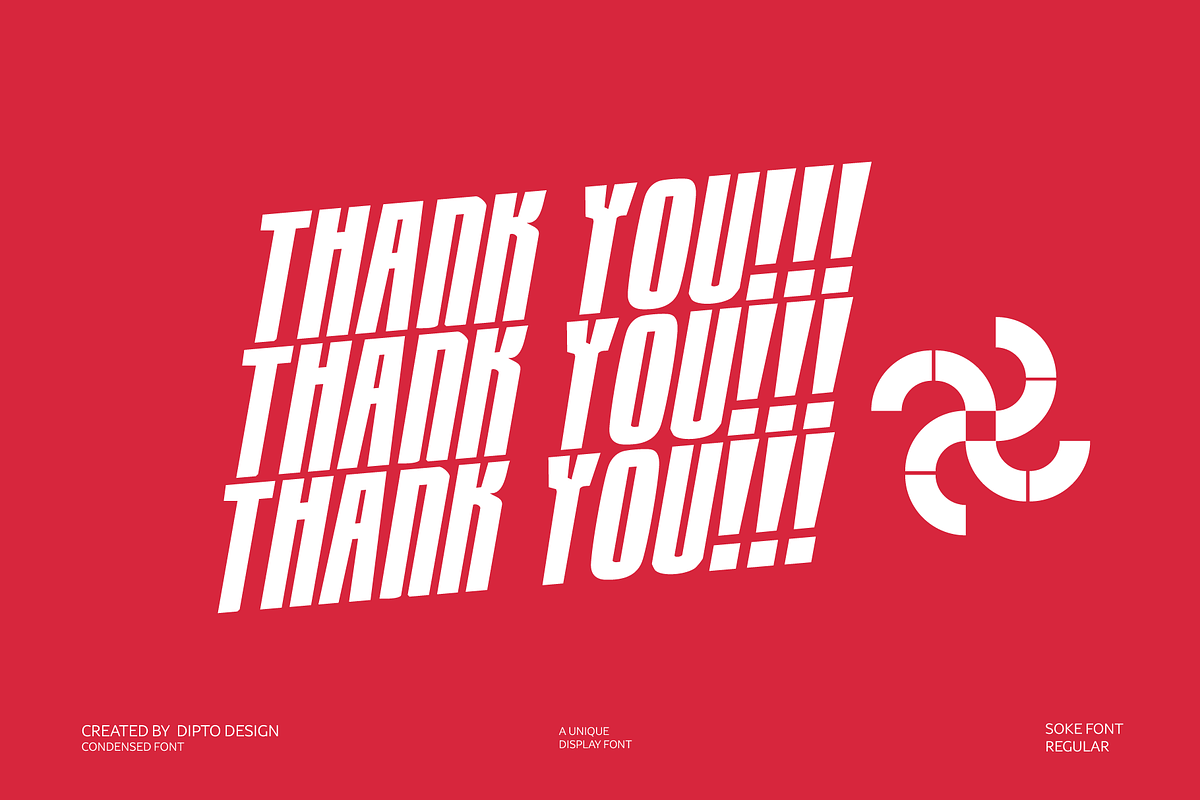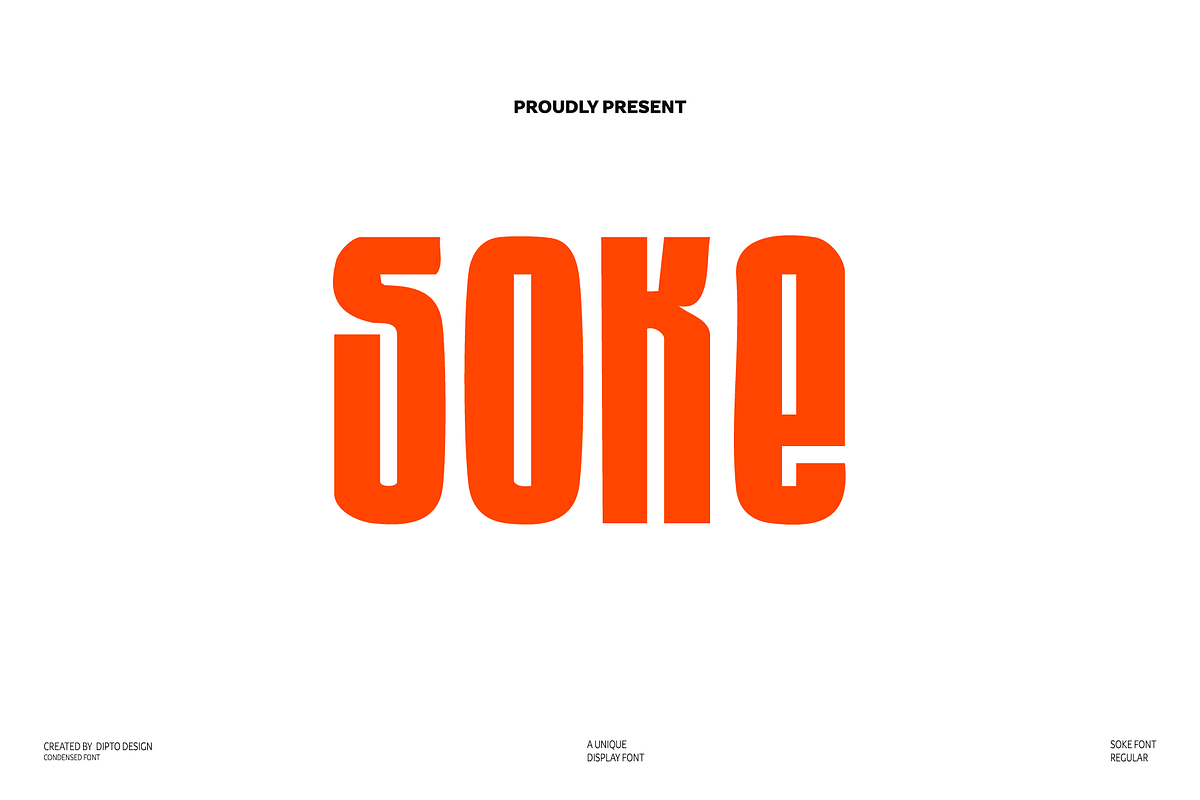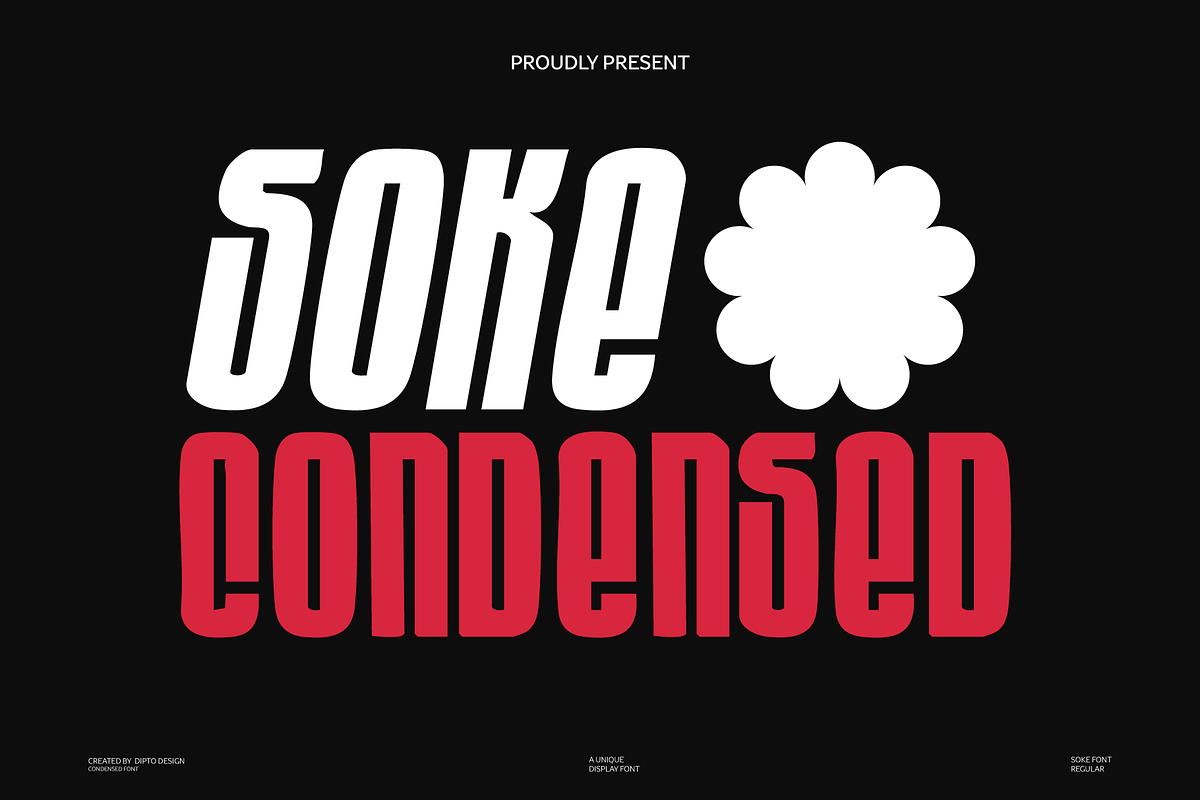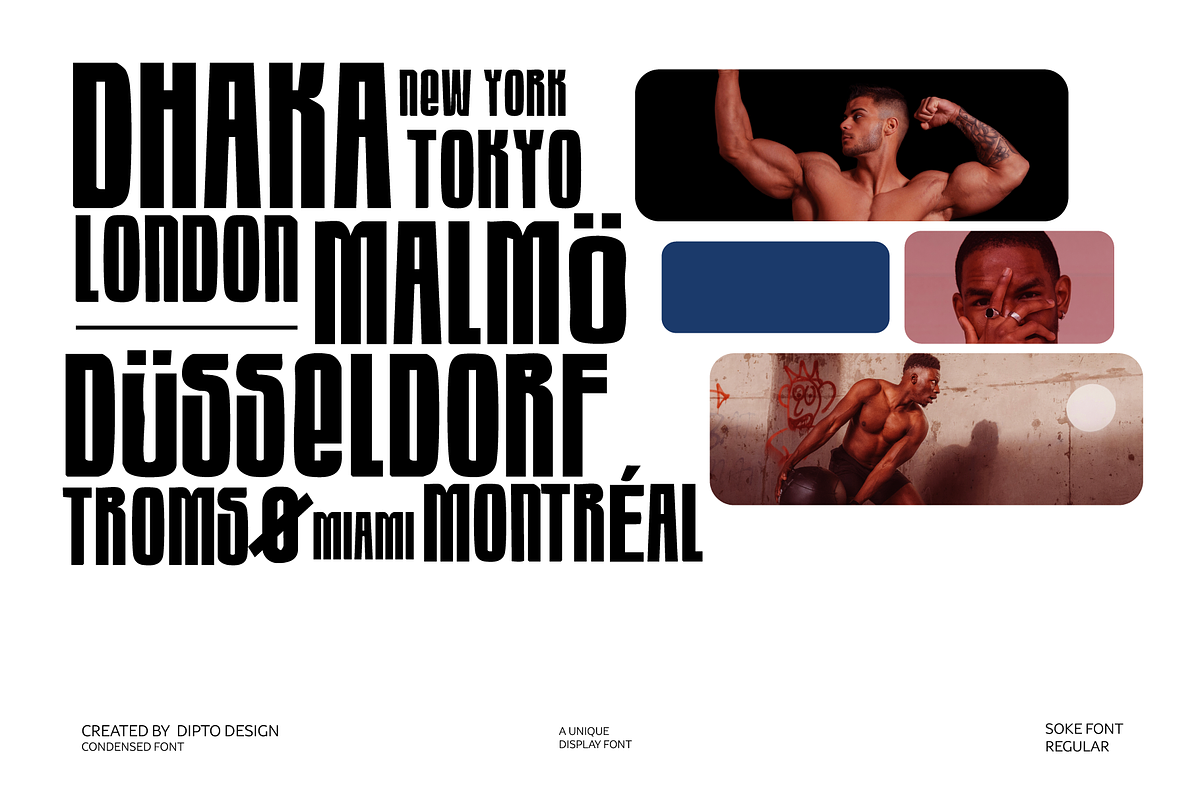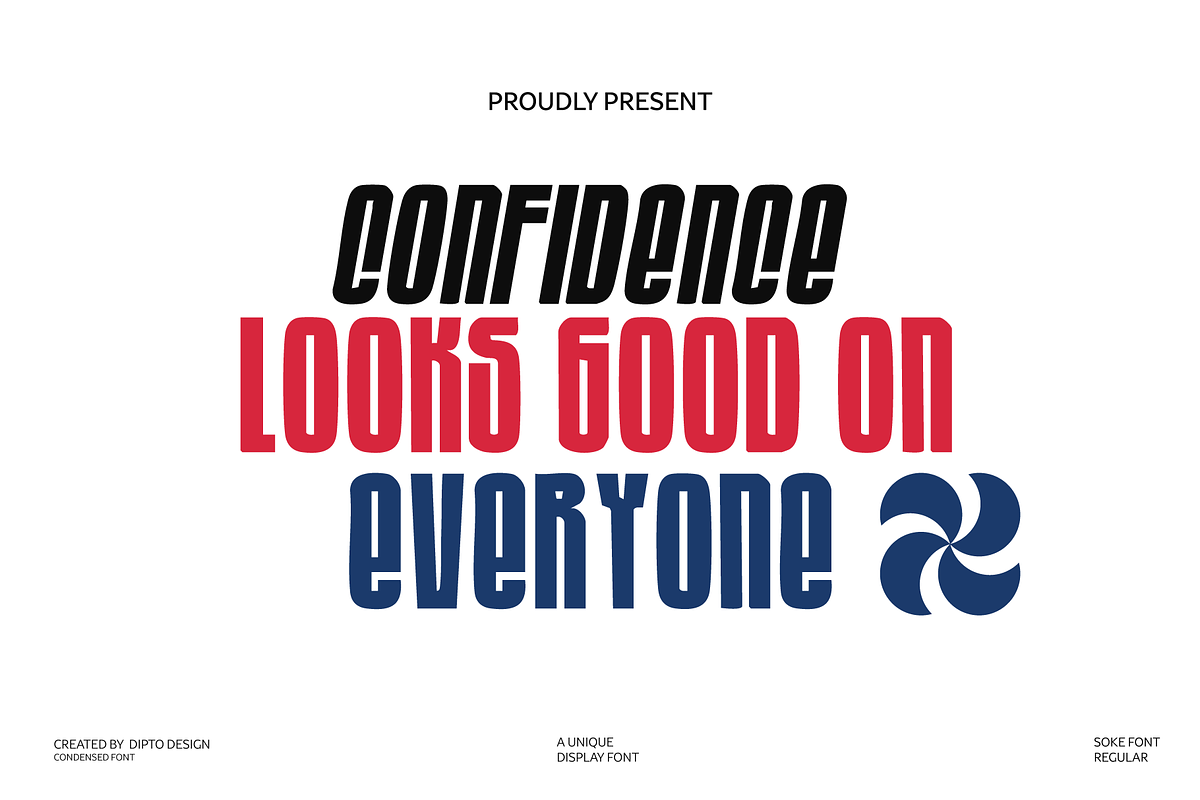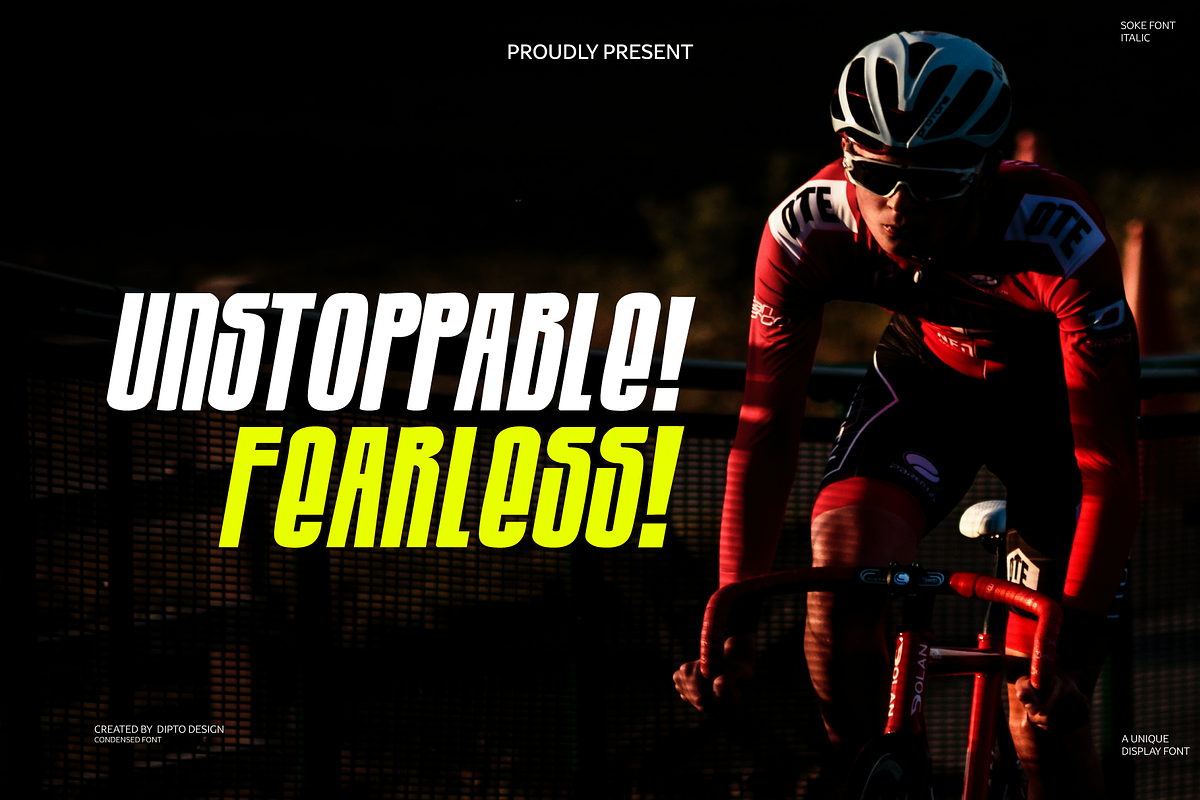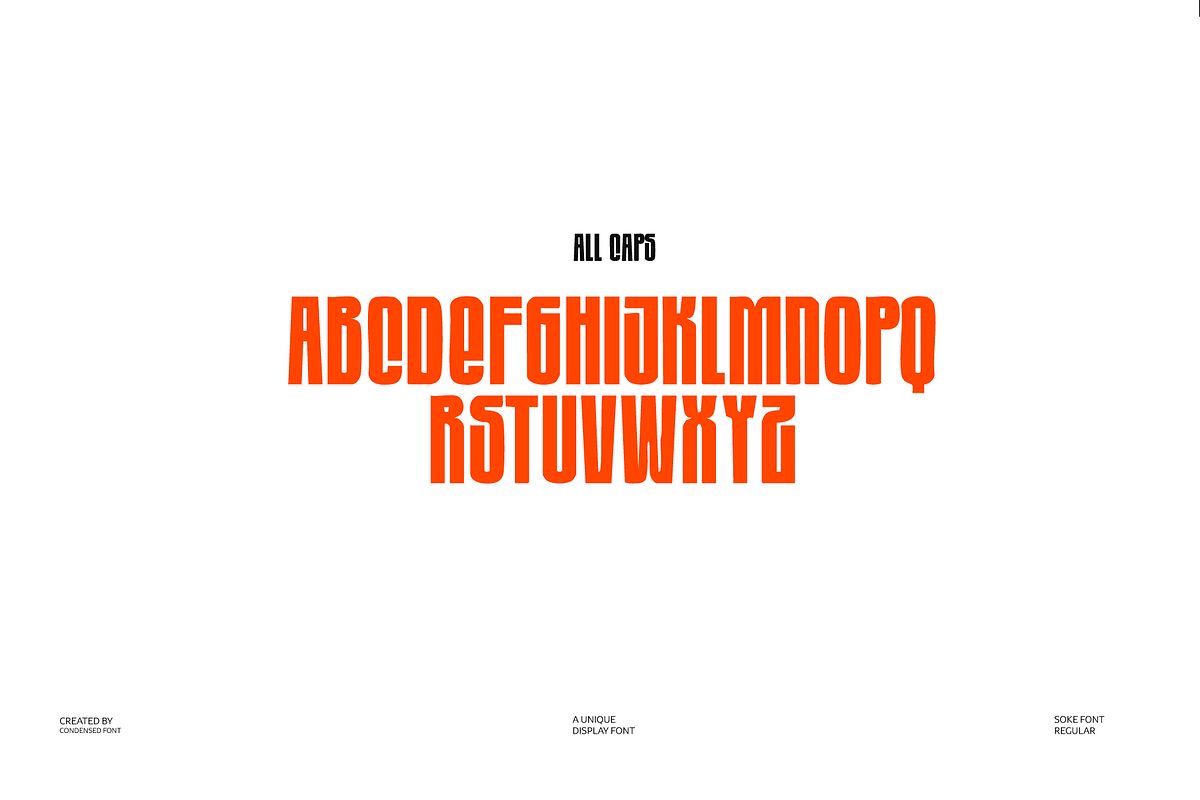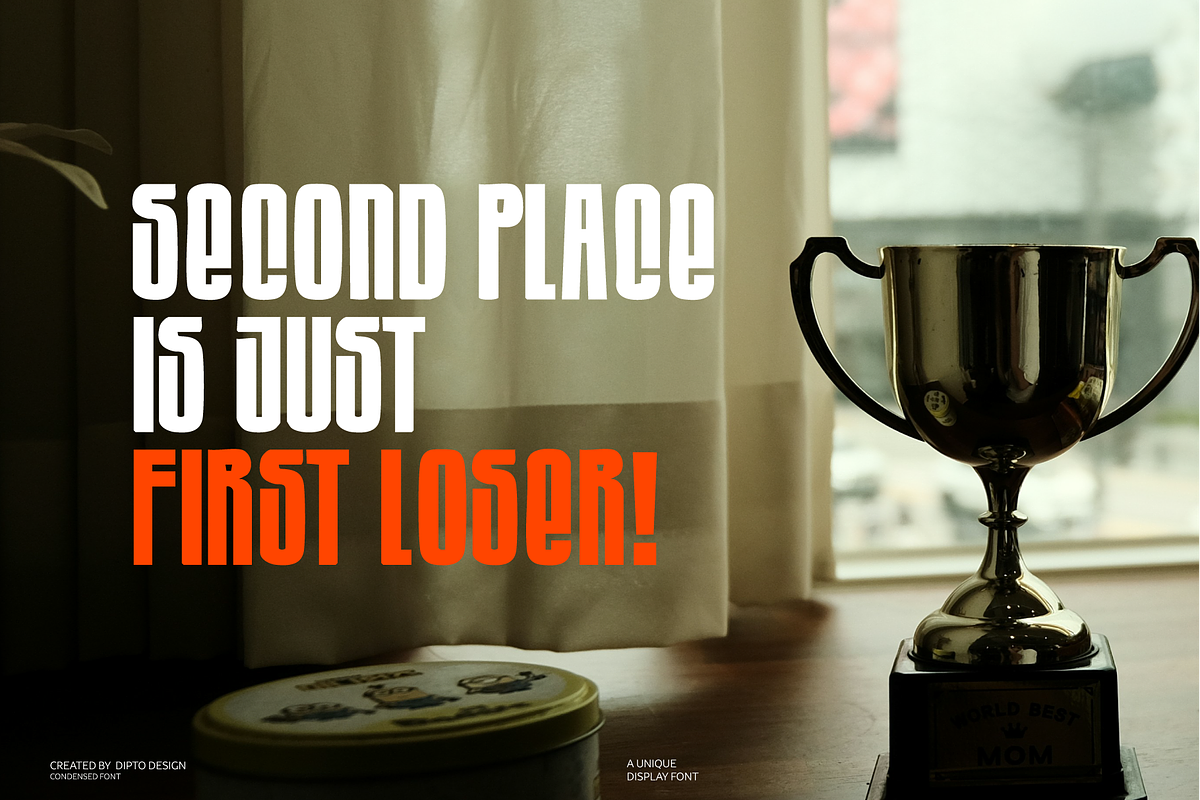
Soke — Bold Condensed Display Font
Meet Soke — a bold, ultra-condensed display typeface that hits like a varsity
jacket patch and a subway poster at the same time.
Every letter in Soke is drawn tall and tight, with blocky slab terminals that
give it real physical presence at any size. The lowercase sits close to
cap-height, so headlines set in Soke read as one continuous, confident block
of impact — no visual noise, no soft edges, just bold shapes doing the talking.
Soke was built for designers who need a display font that doesn't disappear
into the background: sports branding, streetwear drops, packaging that has
to shout from a shelf, gig posters, album covers, app icons, and logotypes
that need to feel handmade and mass-produced at the same time.
USE SOKE FOR
- Logotypes and wordmarks
- Streetwear and merch design
- Sports jerseys, team branding, varsity-style graphics
- Posters, flyers, and gig art
- Packaging and label design
- Album covers and music branding
- App icons and bold UI headlines
Soke isn't a font you use quietly. It's built to be the loudest thing on the page.